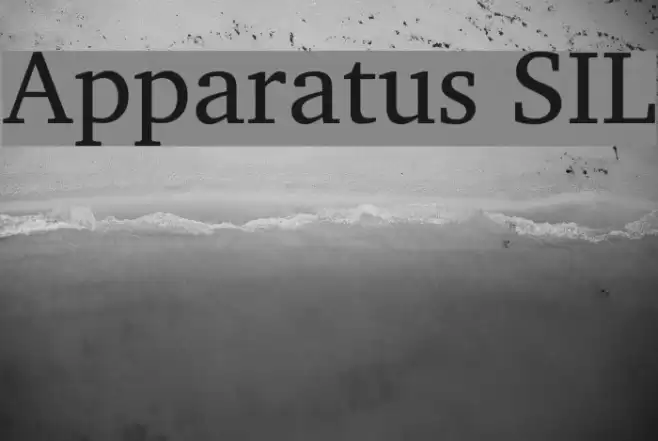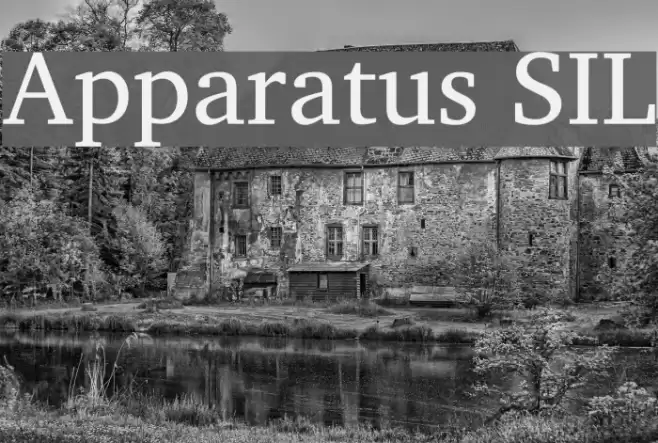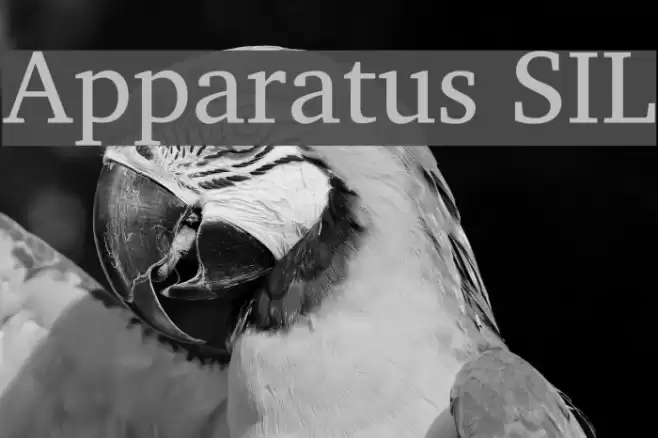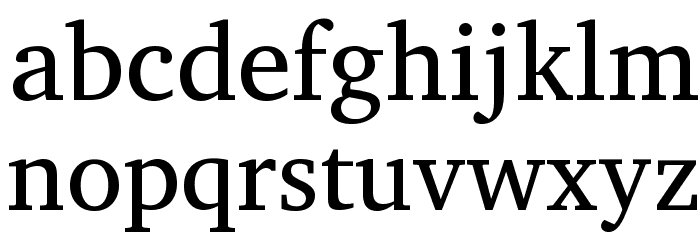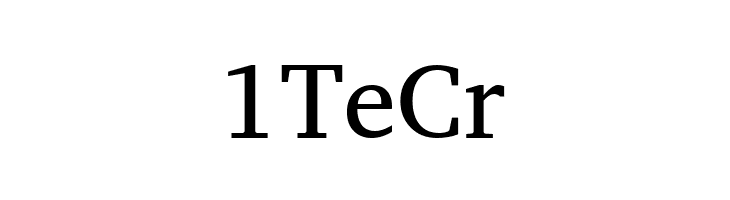
Apparatus SIL
This font features a classic serif style with a modern twist, characterized by its elegant and refined letterforms. The uppercase letters are bold and commanding, while the lowercase letters maintain a graceful flow. The numerals are clear and distinct, making them easily readable. Special characters are well-designed, complementing the overall aesthetic. The font's balanced proportions and moderate contrast in stroke thickness give it a timeless appeal, suitable for a variety of design applications.
A classic serif font with modern elegance and balanced proportions.
- Proposed Projects: Ideal for editorial design, book covers, formal invitations, and branding projects that require a touch of sophistication.
- Category: Serif
- Overall Style: Classic